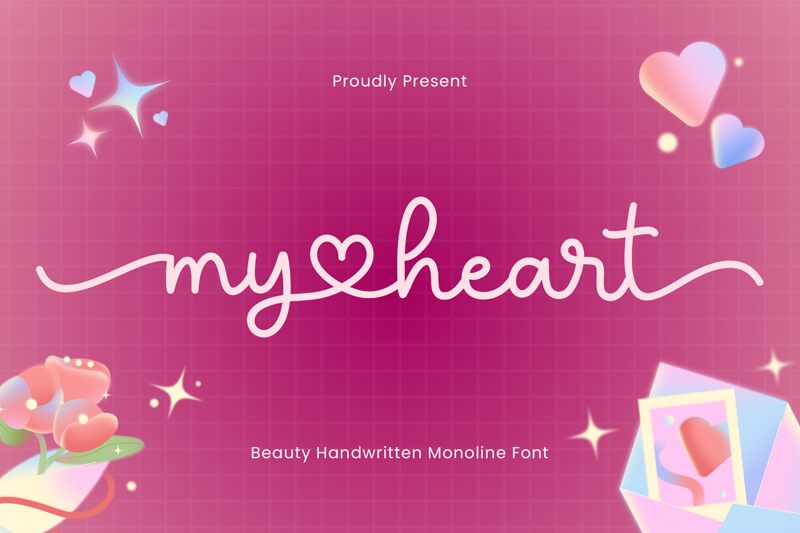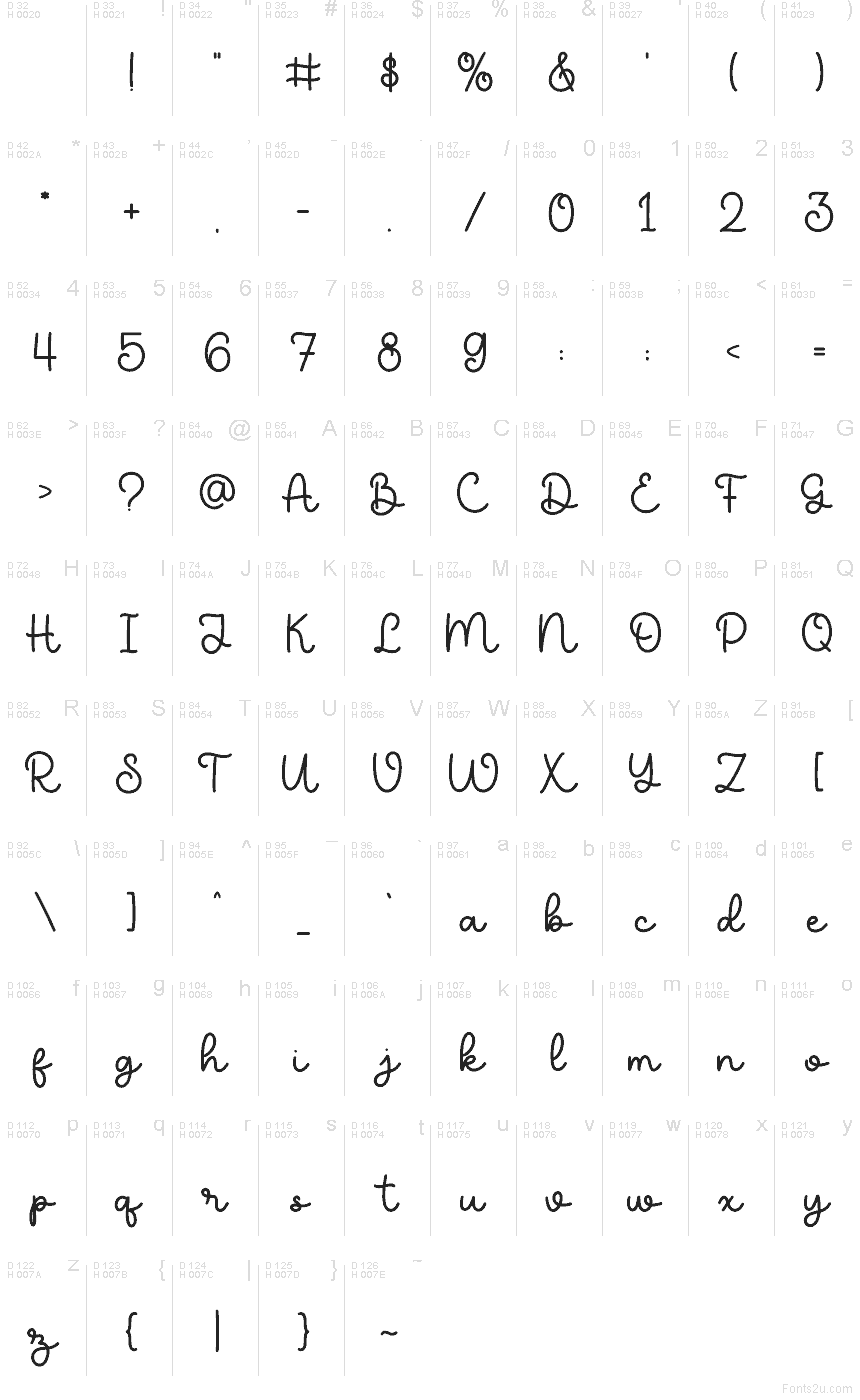
myheart
myheart font by Mozatype is a free handwritten holiday typeface that captures the fluttery warmth of a Valentine note. Its smooth, monoline strokes and rounded curves feel like ink from a favorite gel pen, looping and connecting in an easy, intimate rhythm. The letters sit close and cozy, giving headlines and short phrases a sweet, personal touch without feeling overly sugary or stiff.
Using myheart, your Valentine cards, love letters, wedding stationery, gift tags, social media graphics, stickers, and cute product packaging instantly feel more heartfelt and human. This free font shines when used large, letting those playful curves breathe; pair it with a clean sans serif for body text so the charming script can stay in the spotlight.